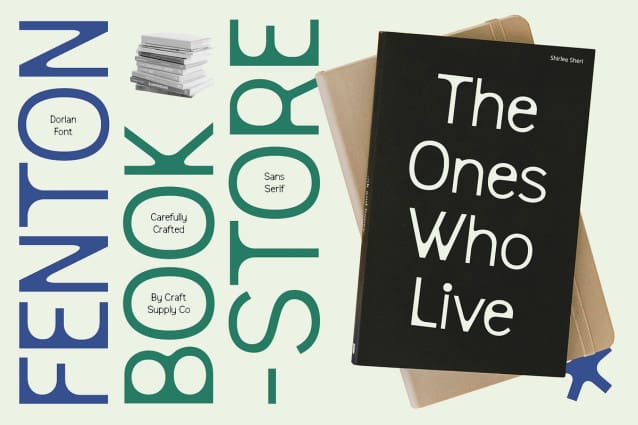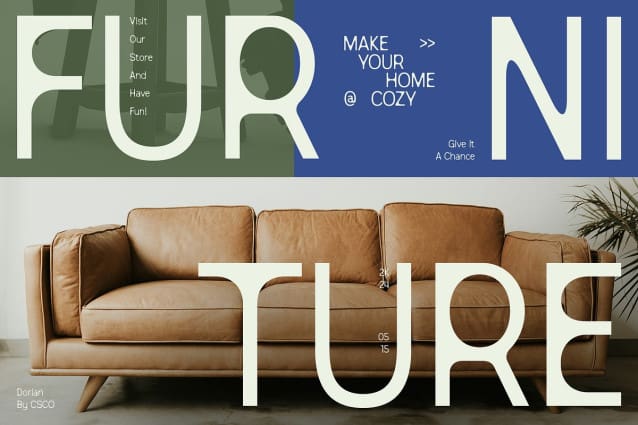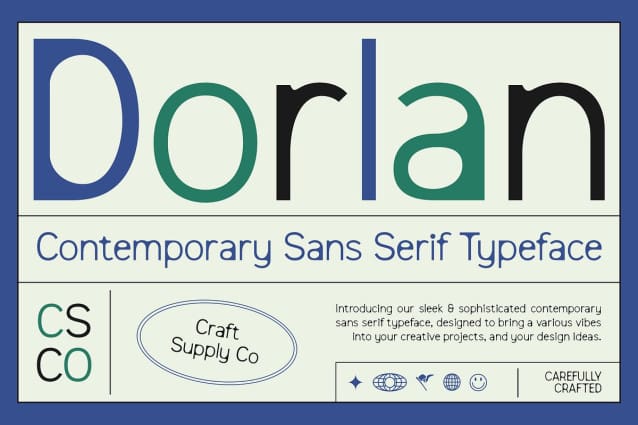
Dorlan Font
Dorlan Font is a modern sans serif font that can feature sleek lines and a contemporary style, Dorlan is ideal for adding a modern touch to your designs. Whether you’re creating branding materials, posters, or digital interfaces, this font will give your projects a fresh and unique look.
Dorlan Font is versatile and can be used in a variety of design applications. Its clean lines and contemporary touches make it suitable for headlines, banners, logos, and more. Whatever your design needs, Dorlan can help you achieve a modern and stylish look.
In addition to its modern styling, Dorlan also adds a touch of elegance to your designs. The font’s clean lines and contemporary touches give it a sophisticated look, making it perfect for projects that require a refined aesthetic.
Despite its contemporary design, Dorlan is versatile and easy to use. Whether you’re a seasoned designer or just starting out, this font will help you create stunning designs with ease.
Whether you’re designing a website, creating marketing materials, or working on a branding project, Dorlan Font is the perfect font to enhance your designs. Its modern styling and contemporary touches make it a versatile choice for any project.